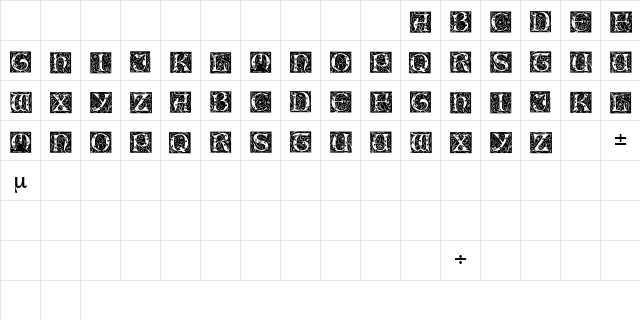
IlluminatiOneDisplayCapsSSK Regular Font Preview
IlluminatiOneDisplayCapsSSK Regular
IlluminatiOneDisplayCapsSSK Regular Font Details
Design Context for IlluminatiOneDisplayCapsSSK Typeface
IlluminatiOneDisplayCapsSSK brings ornamental detail and strong personality to headlines and identities, where visual impact matters more than quiet functionality.